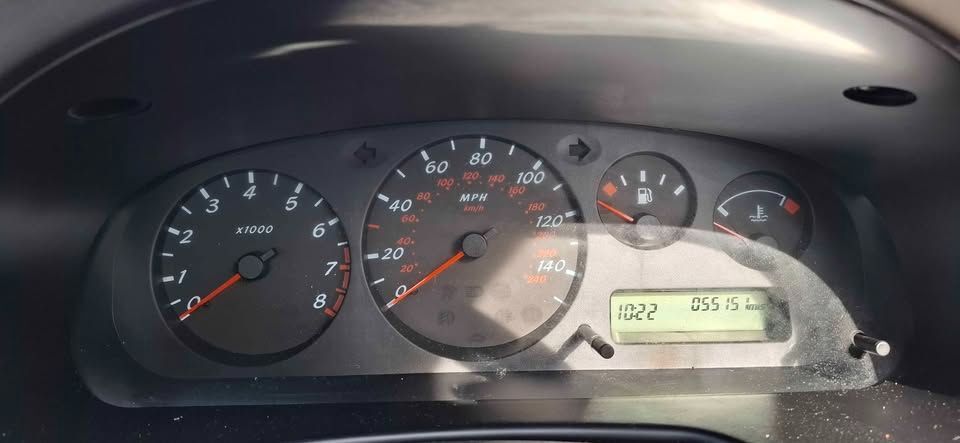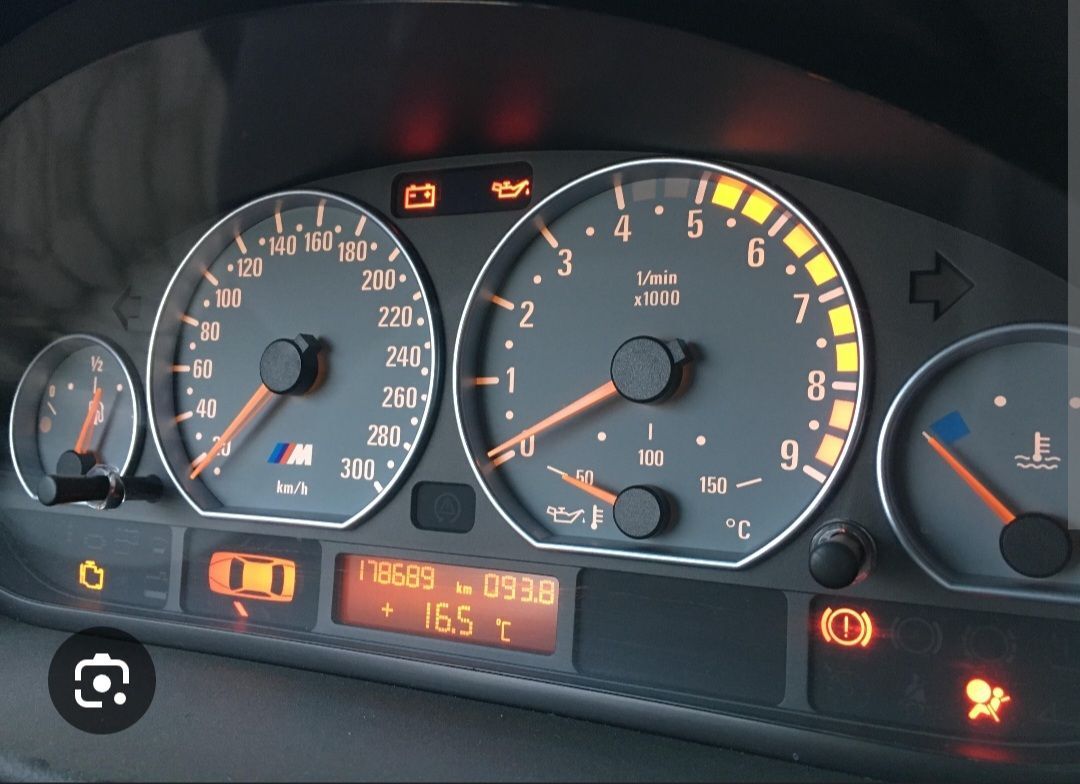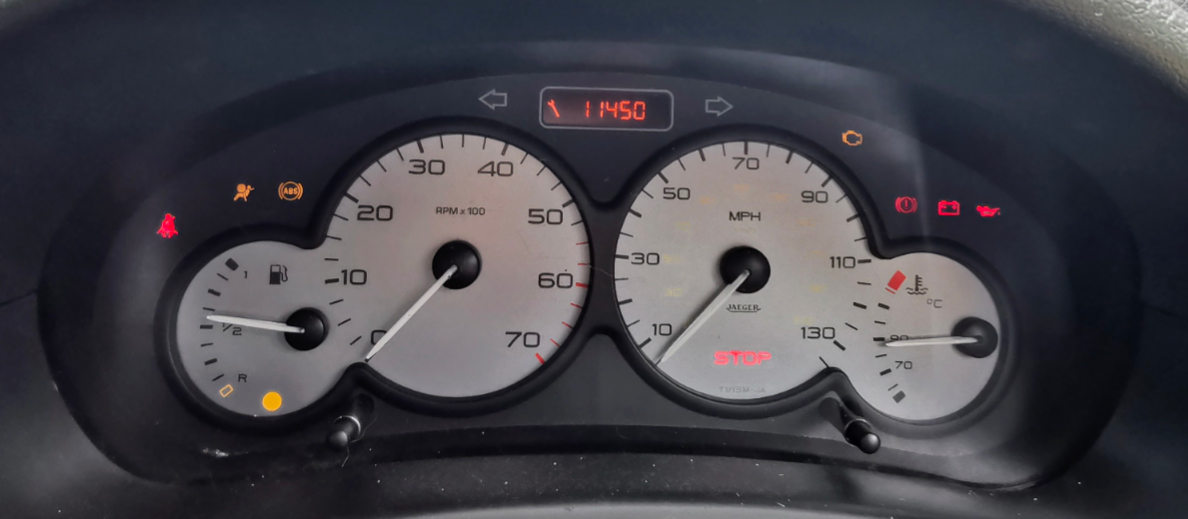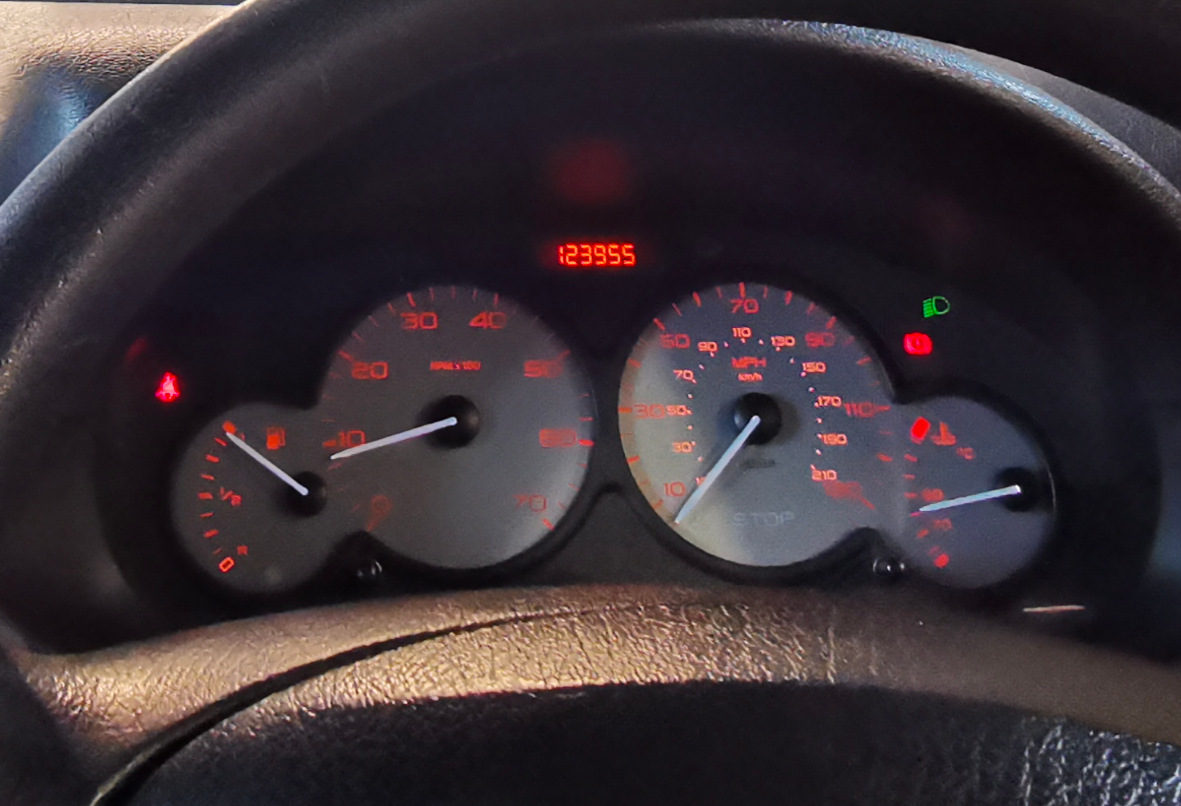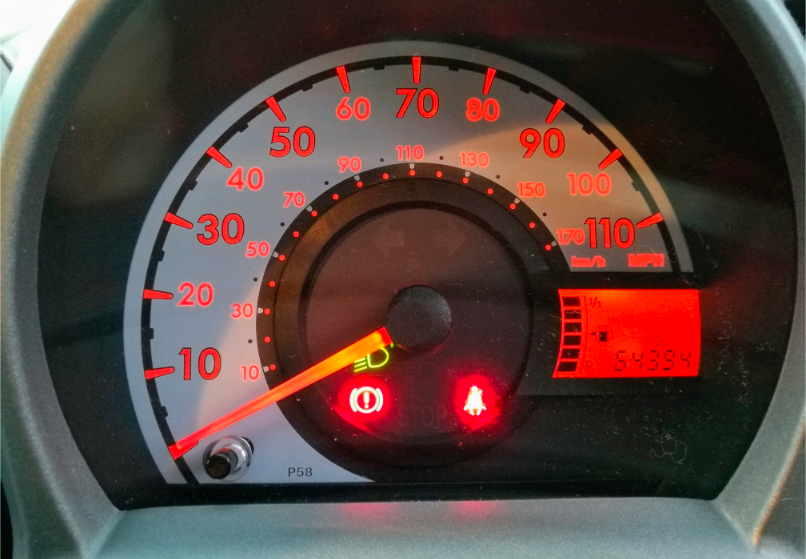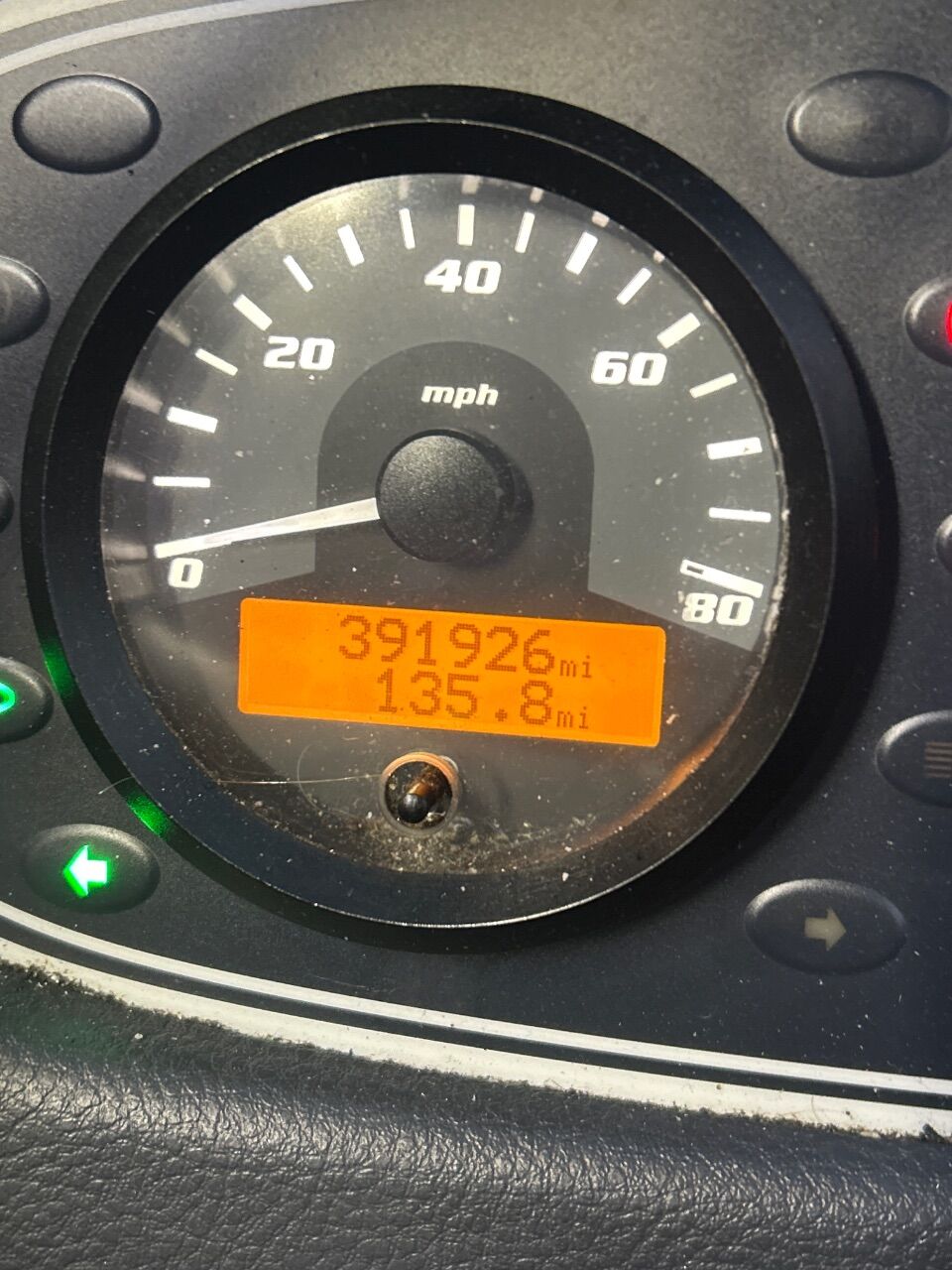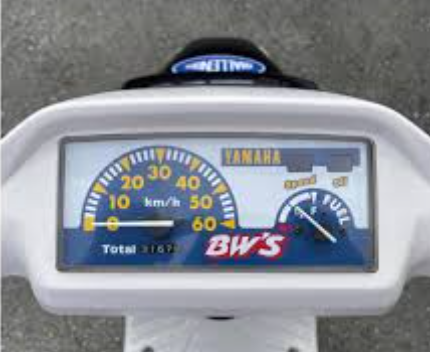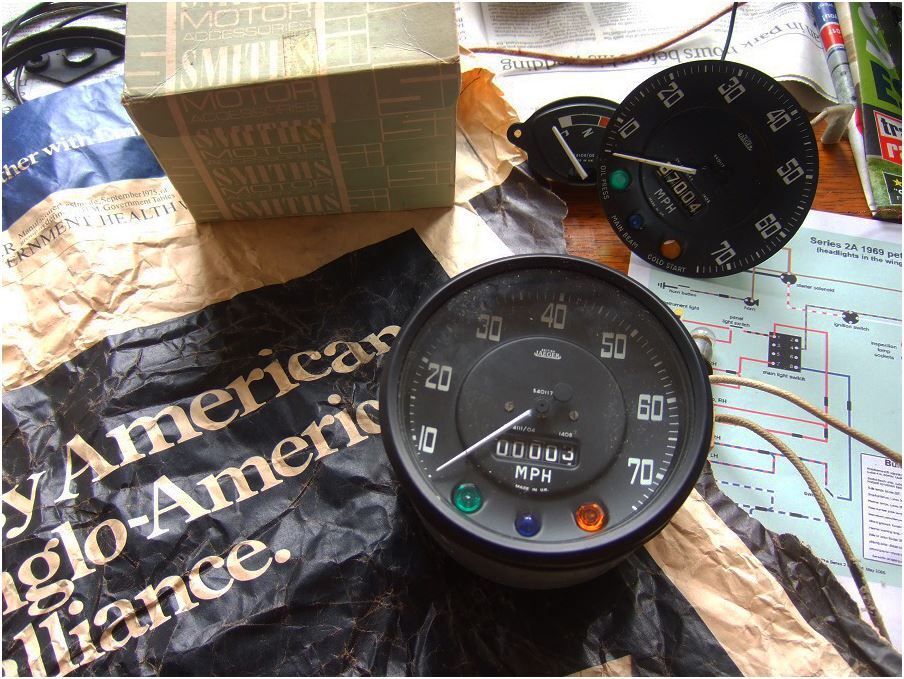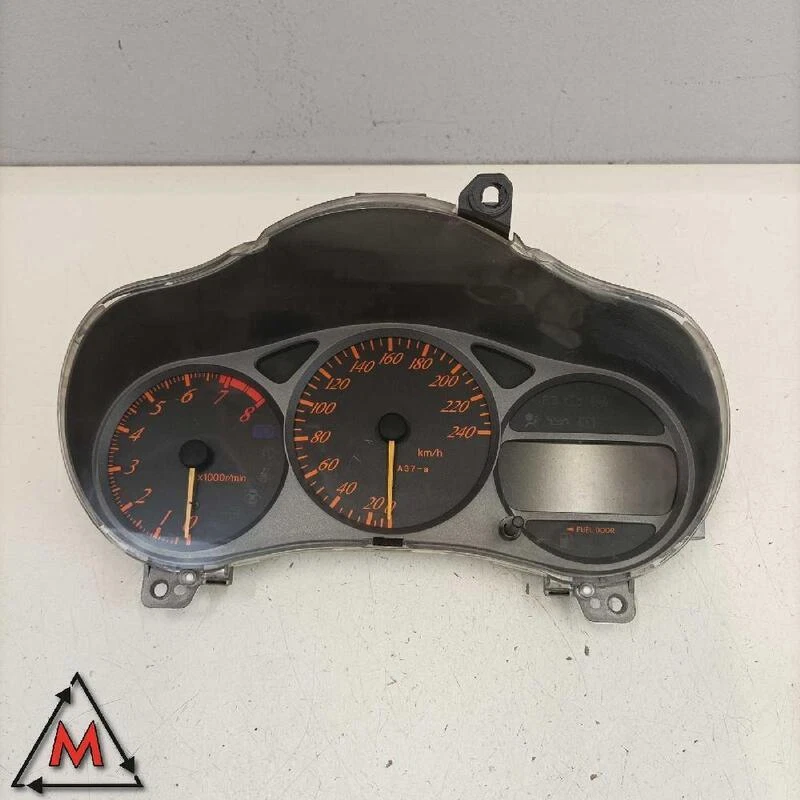
Best and worst instrument fonts
I really like the RS250 Megane, but I always find these dials difficult to read at a glance
Land Rovers up to the Series 3 had this rather odd, almost art nouveau font, the kind of style you'd see over the doorway of a night club in 19th century Paris. Which might not be a coincidence, because Jaeger, the instrument manufacturer, started out in France as watchmakers in 1880. Jaeger was bought out by Smiths in 1927, but Jaeger instruments always had their own font.
I like it, but it's a bit fussy for a Land Rover.
The 986 Boxster dash is pathetic. It's such a childish looking font, like a video game from the 80s.
(I appreciate that there's the possibility that the reason it looks like a shitty Outrun prop is that they copied Porsche)
I was going to post the 986 too. Those wings are also for the 911 with its extra gauges.
The speedometer is the worst bit on the Porsche clusters. Utterly useless speed denominations. Thankfully there is a digital read out.
It's a pretty shit font, but if you want grim here is the entire dash of a base spec Seat Mii.
A little tangential but on topic - how about a very funky 90's Yamaha 16yo learner legal step through known as the BW'S 50 with twin headlights, ballon(ish) tyres and "rugged" styling, complete with a hideous cartoon instrument panel?
I like the mk1 series 2 Granada cluster. It’s quite easy to read for the age.
everything you need and nothing you don't
I need miles per hour.😀
Wow yeah that's 1959 Mini levels of austerity
At least the increments are consistent, unlike its sister car the Volkswagen Up. 0, 10, 20, 40... why!?
When I first met the future Mrs amc she was driving a Daewoo Kalos - bought brand new. In hindsight the actual clocks and fonts weren't too bad.
Just that everything around them was pig ugly and the wheel position meant they were hard to see.
2014 Wrightbus Streetlite. Looks like they’ve taken the Speedo from a Chinese scooter
Never been a fan of the Primera's instruments if I'm honest
Yep. Had one, hated that chintzy font. Good car though.
This typeface is pretty ubiquitous in every Japanese product made in the 80s/90s, including cars. I love it. I remember reading a blog once about why, can't seem to find it. Still looks 10/10 today; smart and clear.
That looks bloody awful to me. Are the 8 and charging light on rev counter and fuel gauge icon  actually blocked by the speedo thing or just the angle the pic was taken?
Leyland National. Introduced ergonomic design to bus cabs. First time the colour coded warning lamps were know and love were used.
Also looks fucking cool. Everything one needs. No frills and fucking cool:
In contrast with this. Way too much information- why do we need a fucking rev counter on a Milkfloat?
Also the bus stop lamp on the main display isn't used- it is in a small and difficult to read panel to the right above the gear selector switches.
I'd forgotten about the italic Comic Sans nonsense that Porsche had used along with the world's most useless speedometer scale.  Or I'd tried to block the memory from my mind... that's one reason I couldn't ever have a Boxster, that panel would drive me insane.